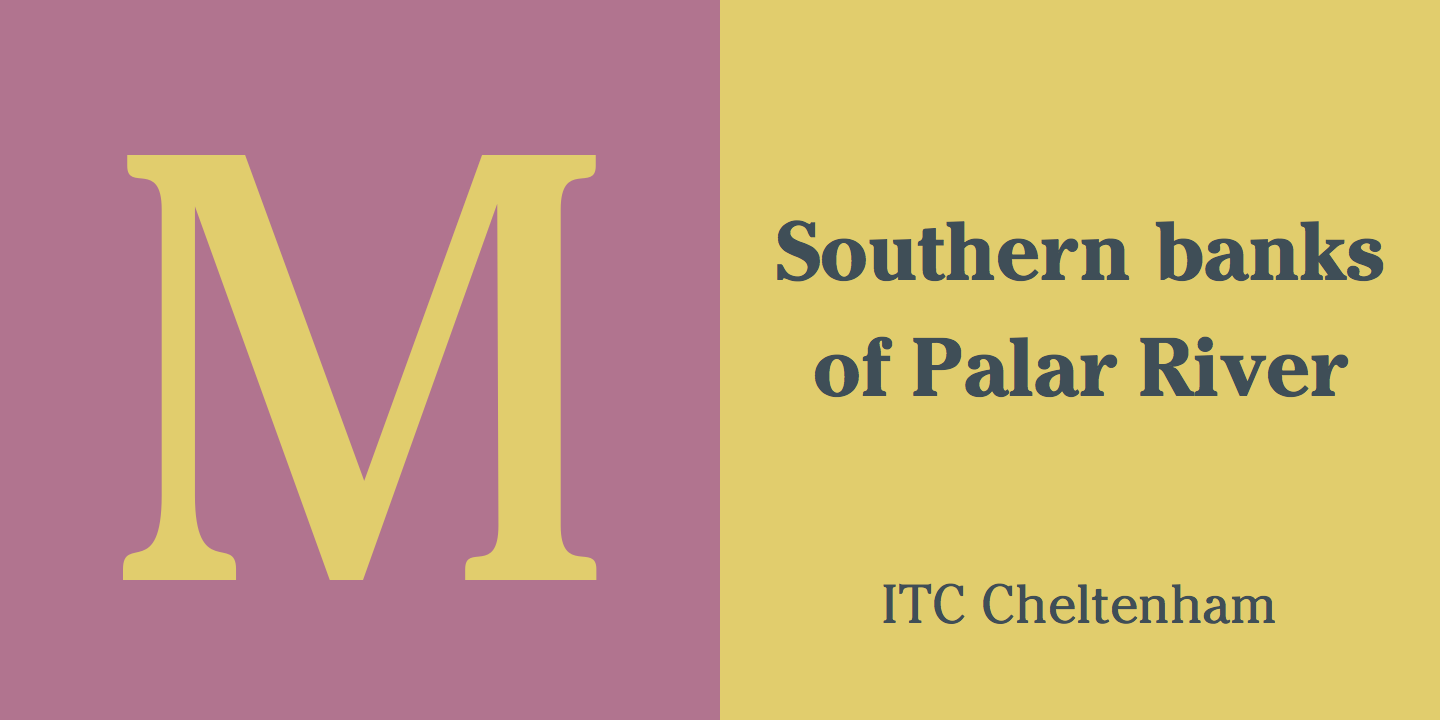
The ITC Cheltenham Font is a historically significant and enduring serif typeface, originally designed by Bertram Goodhue and Ingalls Kimball in 1896, and famously revitalized by Tony Stan for ITC in 1975. It's characterized by its sturdy construction, large x-height, and a unique blend of old-style warmth with a more modern, robust presence. Imagine its confident characters gracing the headlines of major newspapers (like The New York Times, for whom a custom version was made), adding a strong, reliable feel to corporate branding, or providing the backbone for classic book designs and editorial layouts. Its excellent legibility and distinctive personality make it a versatile choice for everything from advertising campaigns and product packaging to academic publications and government documents. ITC Cheltenham Font delivers with its unwavering quality, ensuring your message is conveyed with supreme clarity and a timeless, authoritative aesthetic.
What makes ITC Cheltenham Font so exciting is its rich history and its successful transformation into a modern typographic staple. While the original design received mixed reviews, ITC's re-cut by Tony Stan dramatically improved its aesthetics and functionality by enlarging the x-height and refining the italics. This revitalization took a "dated display design" and turned it into a "straightforward, no-nonsense typeface" suitable for both text and display applications. It's more than just a typeface; it’s a testament to the enduring power of classic design, continually adapted to meet contemporary needs. Its distinctive appearance, particularly its "top-heavy" capitals and unique details like the open bowl on the 'g', give it an undeniable personality that sets it apart. Designers appreciate its ability to convey both traditional reliability and modern impact.
The ITC Cheltenham Font family is comprehensive, offering a versatile range of weights and styles to provide extensive typographic control. Beyond the foundational ITC Cheltenham Regular, the ITC version typically includes a rich spectrum of weights such as ITC Cheltenham Book, ITC Cheltenham Light, ITC Cheltenham Medium, ITC Cheltenham Bold, and ITC Cheltenham Ultra. Each of these weights usually comes with corresponding ITC Cheltenham Italic versions. Furthermore, the family often includes various widths like ITC Cheltenham Condensed and ITC Cheltenham Condensed Italic for space efficiency, and even special decorative versions such as ITC Cheltenham Handtooled (designed by Ed Benguiat, adding an engraved effect) for unique display purposes. This extensive range of family members ensures that designers can create intricate and harmonious typographic systems, maintaining a consistent, powerful, and aesthetically pleasing appearance across all elements of a project, from headlines and logos to detailed body text.